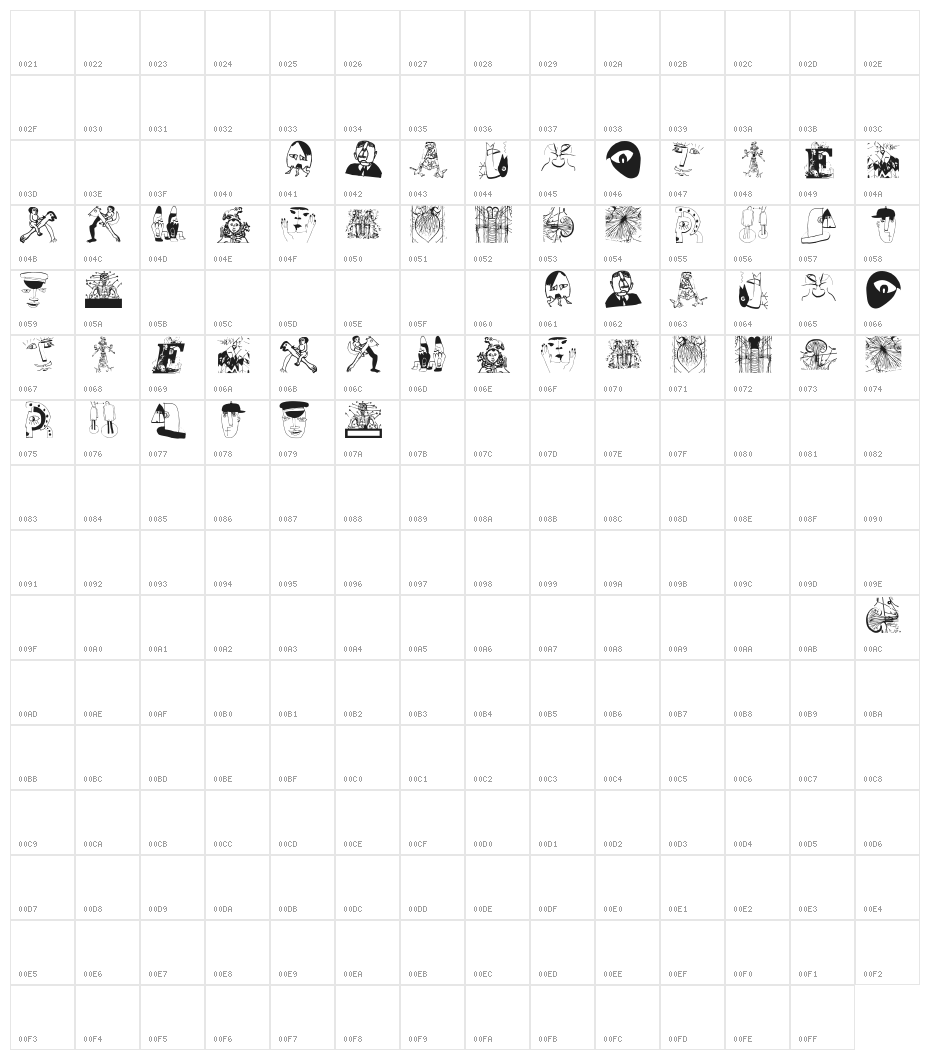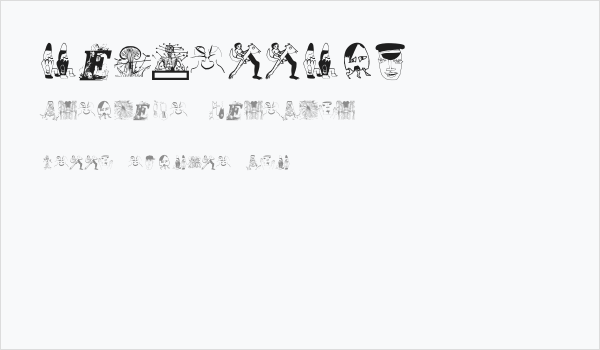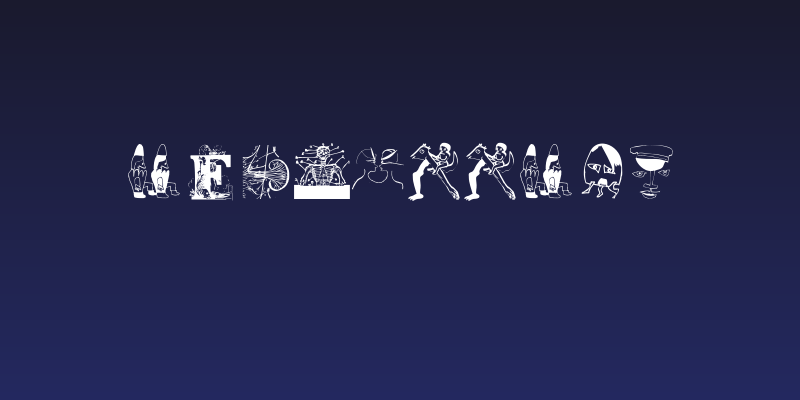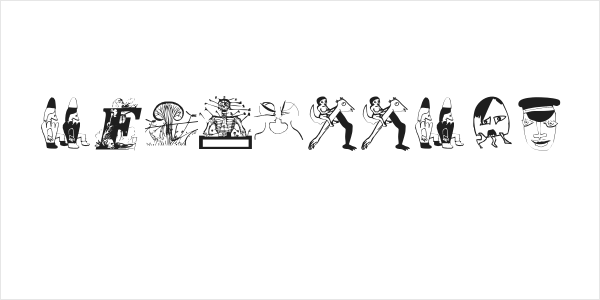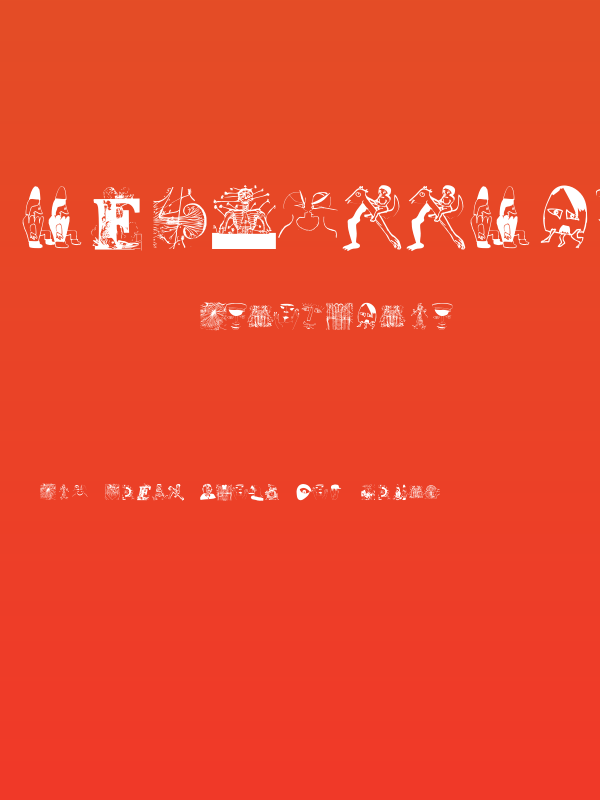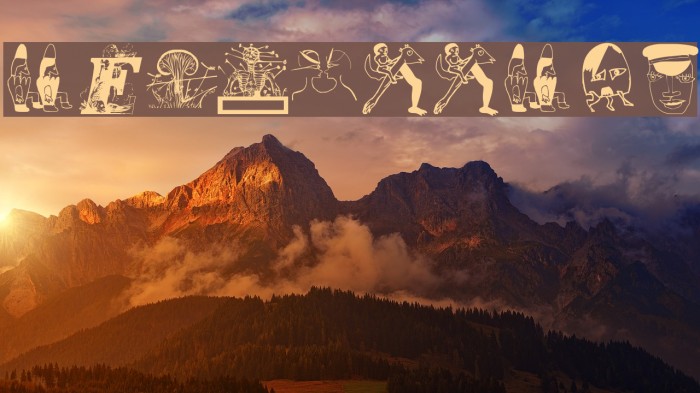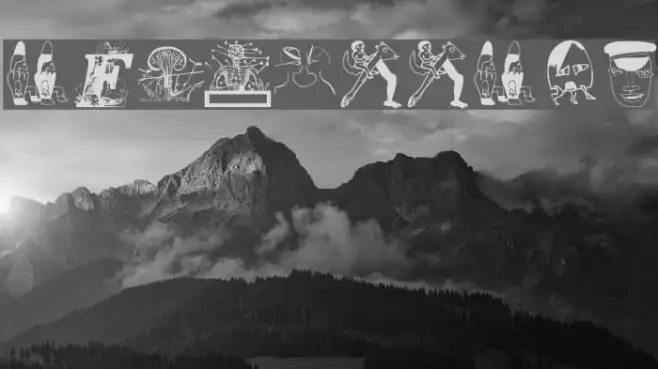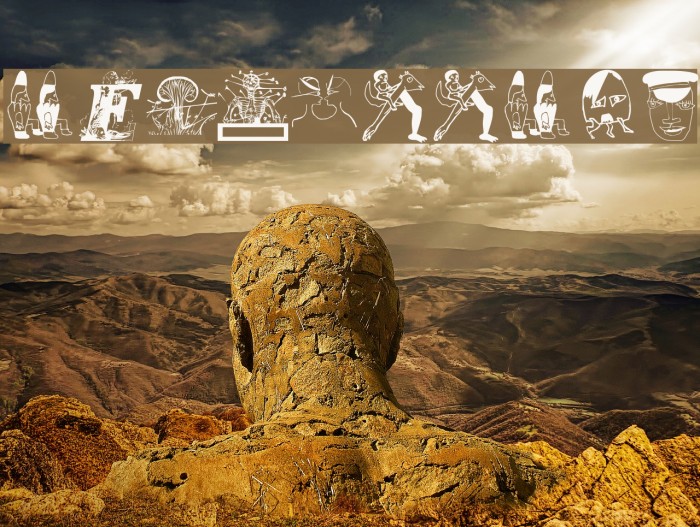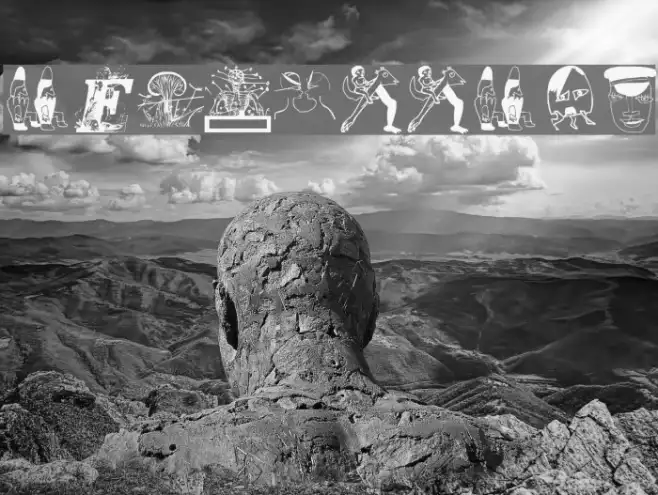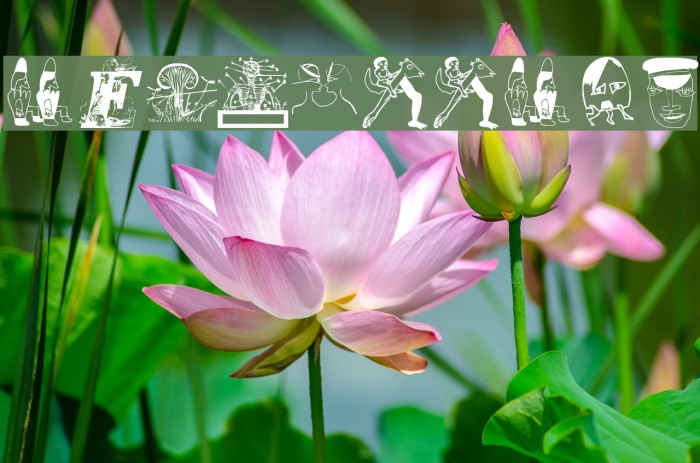
MiszellMay Font
MiszellMay Description
This font is a highly decorative and artistic typeface, featuring intricate illustrations within each character. Each letter is uniquely designed with detailed drawings, ranging from abstract shapes to recognizable figures and objects. The style is eclectic, combining elements of surrealism and whimsy, making it visually engaging and distinctive. The characters are not uniform in style, with some incorporating bold, solid areas and others featuring fine, detailed line work. This font is more of an art piece than a traditional typeface, with each letter telling its own story through its design.
| Use Case | Logos, Posters, Artistic projects |
| Proposed Projects | Ideal for creative projects such as posters, album covers, or any design work where a unique and artistic touch is desired. |